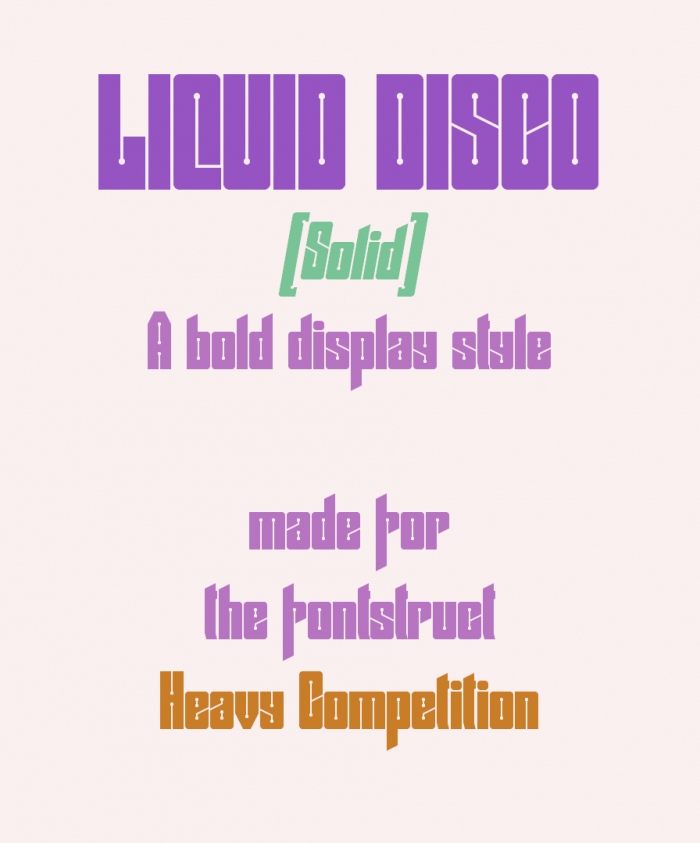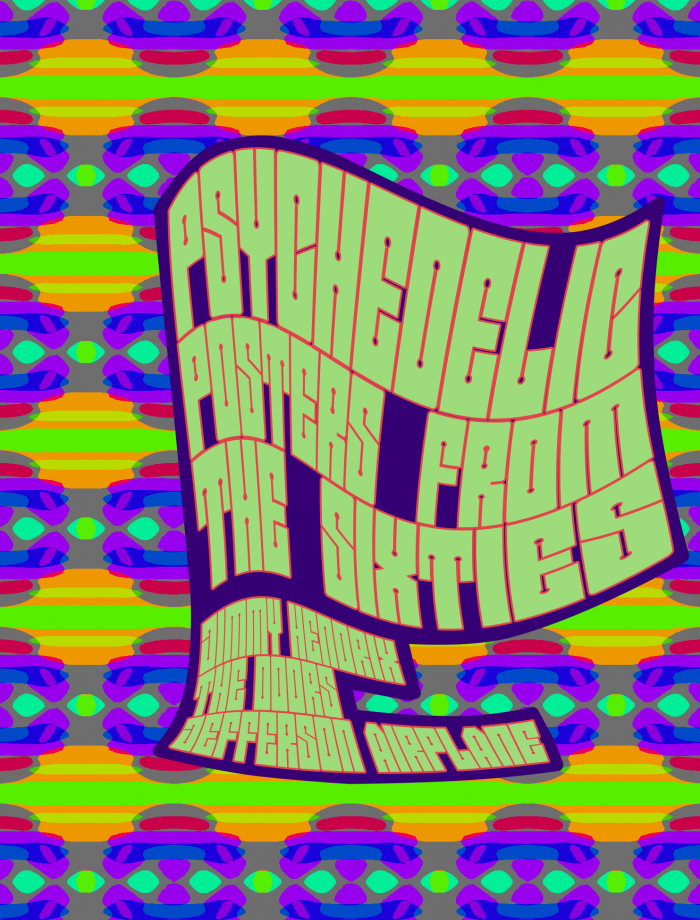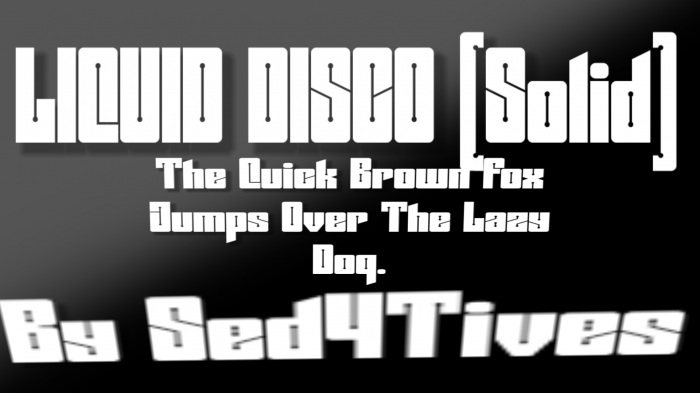
STF_LIQUID DISCO  (Solid)
by Sed4tives
STF_LIQUID DISCO (Solid) - Sollid filled style variation on:
Liquid Disco (Outline)
The "Heavy Competition" was the perfect excuse to finaly blow some new life in this older project.
This font family is a funky looking display sans. The original outline version was inspired by music advertisement and psychedelic arts.
This follows up on the first version with a rock solid filled glyph.
Nice last "60s style" sample.
A little inside fact about this font btw. was that in the original outline design I did these dots center aligned  in the top and bottoms of its counters, wich was one of its main key design features. This was easy to do with just default bricks from the pallet. Since there will be no discontinuations in any of its features when 2 bricks overlap and complete a whole.
When I choose to do this reversed filled version I found out there was no way of mimic this from the default brick pallet without having a discontinuation in the stroke endings where the dots are located that make up a full counter. I was dumbstruck by how hard it turned out to be getting these close to be perfect circular, even with the help of composite bricks. And in the end I had to settle for this none perfect close estimate of a circular dot.
If anyone is interrested in how I designed the little dots in the counters I will post a image in the comment section.
Good solution. I've tried to approach the design of the internal circle in this way (B).
I can't believe another came back! Also, that lowercase F is top-notch.
@elmoyenique: Damn you, great approach, much closer than mine!
So now I was in for a little competition and had to try coming up with yet another solution for the approach to see if I could possibly be doing even better!
And I think I did, lol (oops) =)
But I'm not yet sure about changing the font again in order to use this new solution.
The glyphs in the end got constructed in a pretty messy and random fashion.
I copied/re-used many segments that were then subjected to rotations/nudging and patching gaps. So any logic within the assembled brick configuration has long been gone. Updating the font will probably result in reconstructing most glyphs from the ground up (argh).
The cool thing about my new solution is that it contains all composite and brick overlays within the local group of 2x2 square grid units.
Not requiring any nudging or patching of any newly created gaps in the surrounding grid for this local group.
So I will definetly going to save this new solution in one of my prebuilt fontstruct templates to use another time!
Here is a image that shows my new solution for the approach of the negative circle brick!
Another thing I should explain is:
The Lowercase letter 't' was designed to right side colide with its adjacing glyphs on purpose and has metrics to fit this parameter to a further extend throughout the font.
I know some hardcore typographic purists are not going to like this decision. But this is done for certain important technical reasons, and has a obvious aesthetical reason as well.
Let me enlight this with some tech-inside about this font.
I did this to maintain equal letterspacing of 0.5 grid units. This number keeps coming back in various choosen design parameters throughout, making this a relative important value for the overall aesthetics of the enite work.
The roots for this value trace back to the 0.5 grid units used for the stroke weight of the Outline version. And, since strokes make up for 99.9% of all the components that distinguish each individual letter's typographic anatomy, for this reason the value somewhat gained significance.
One of the key features for the first version are its connected glyphs, and they do so by way of overlapping outlines. What this also meant in technical terms, due to its connected nature this automatically became the value for individual letterspacing. And since that first Outlined version could be considered as the Regular style for the font family, this value found its way into this Solid version's design too.
The same value's were used for the counters and all other incisions.
Bringing all this back into a nutshell, in a certain way the amount of negative space (white space) became a overall key component for this font's design and visual appeal!
“ So much info, but, at least now u know  'why?' ”